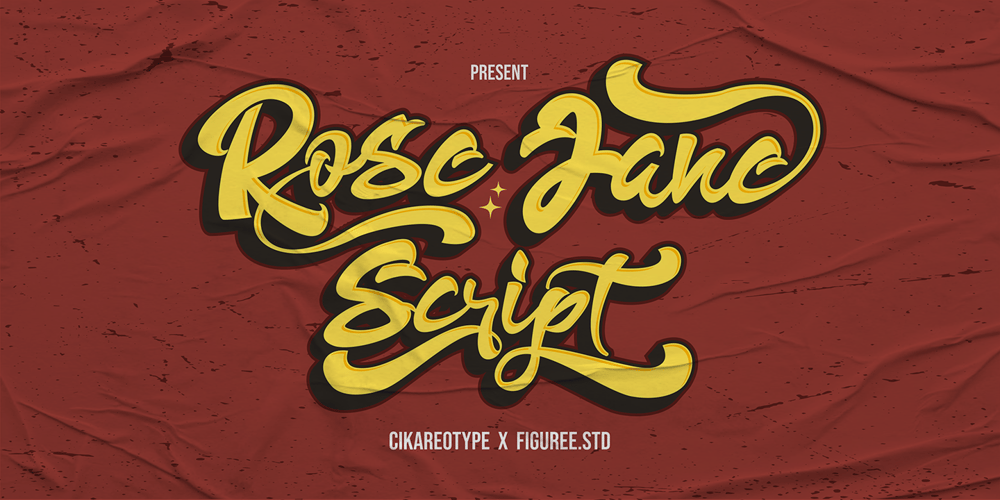
Rose jane script Font Family was designed by Sipanji and published by Sipanji21. Rose jane script contains 4 styles and family package options. “Rose Jane” is a vintage-themed script font enriched with stylistic alternates and swashes to elevate your designs’ impact. With its timeless and graceful style, this font adds a nostalgic touch of elegance to your projects. Additionally, the font offers two distinct styles: regular and shadow effects, providing options for depth and dimension in your designs. .